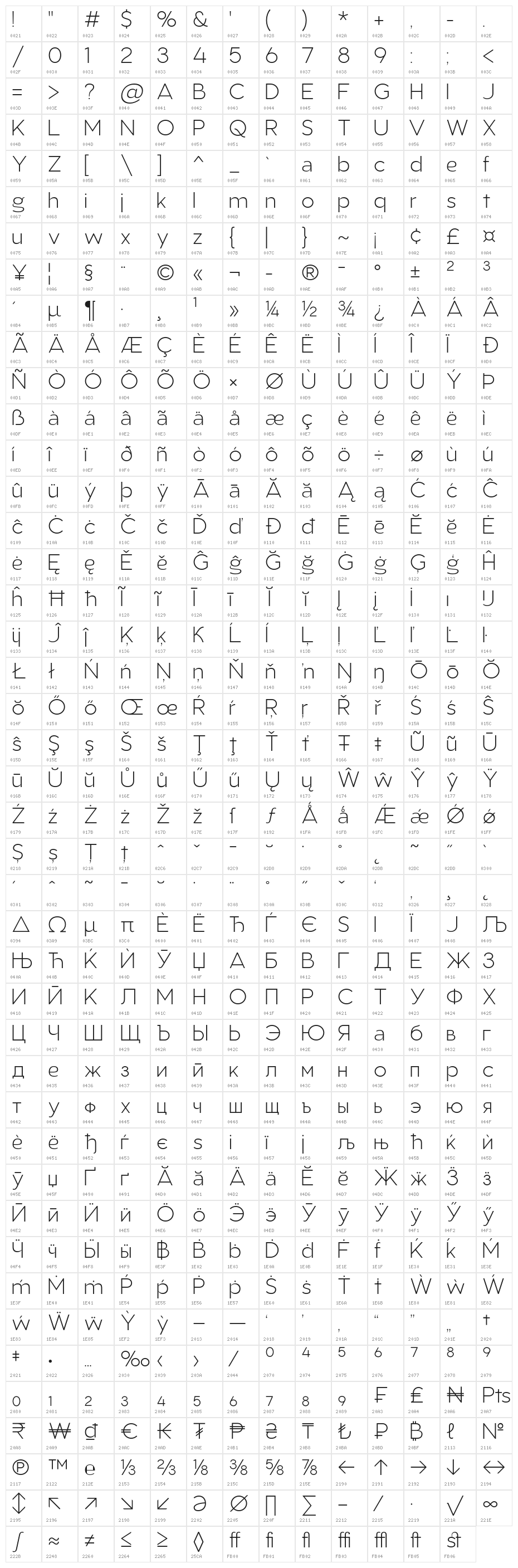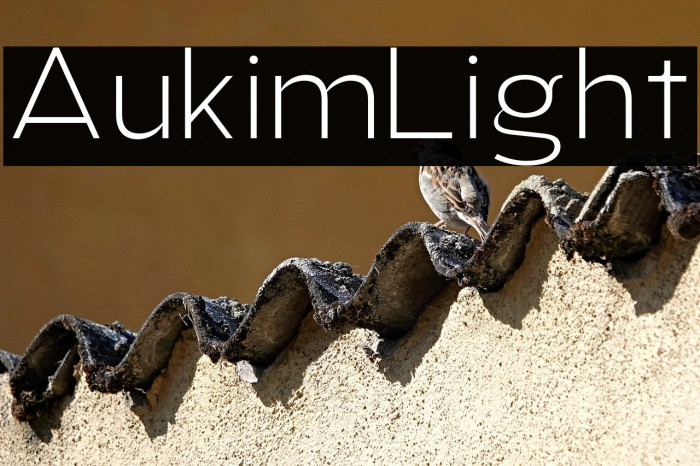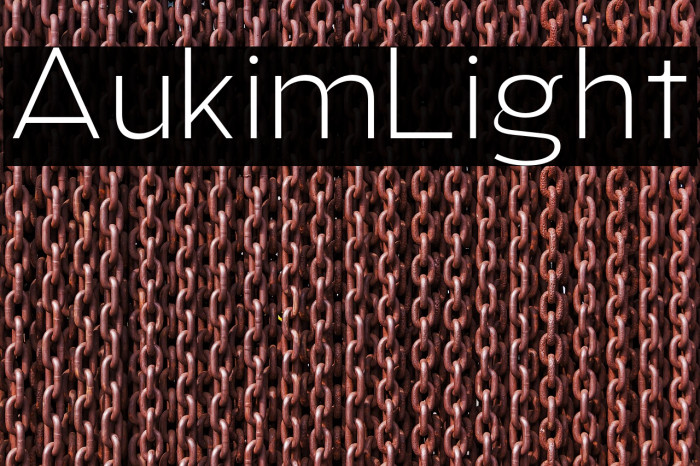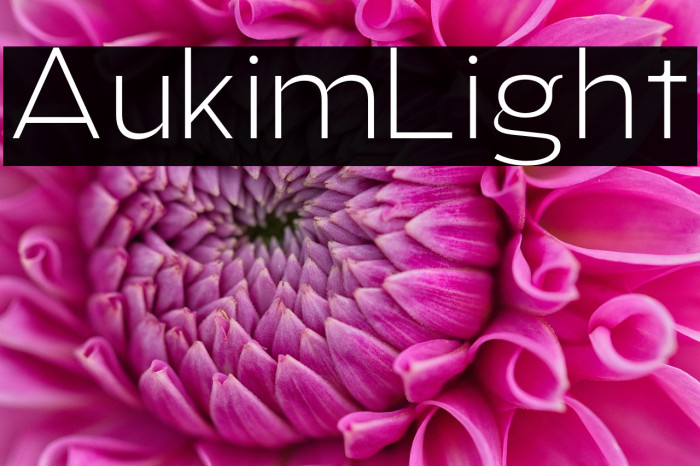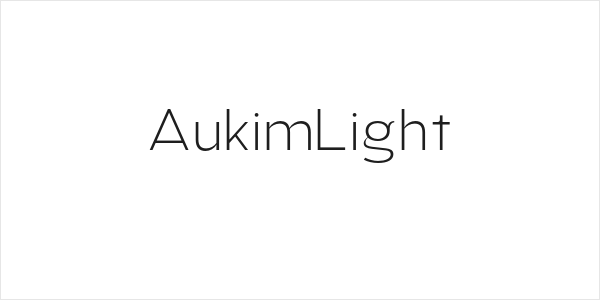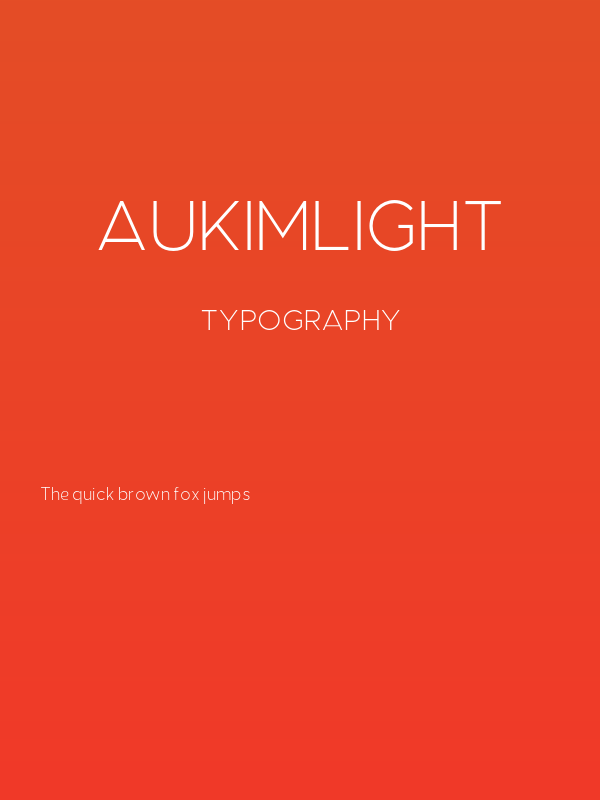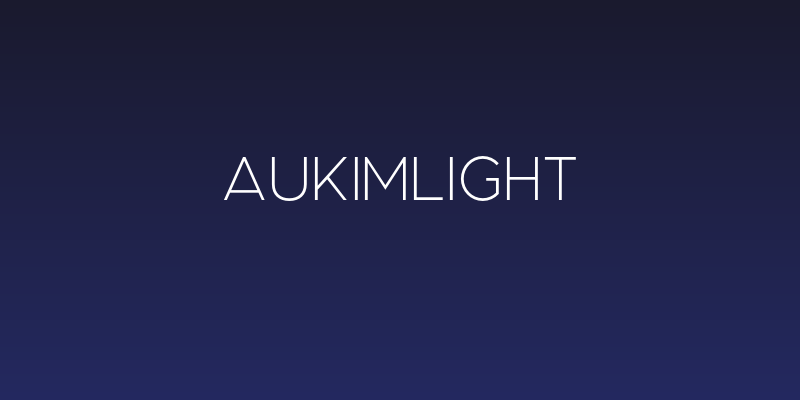
AukimLight Font
AukimLight Description
This font features a clean and modern sans-serif design with a geometric structure. The characters are evenly spaced, providing a balanced and harmonious appearance. The uppercase letters are bold and striking, while the lowercase letters maintain a consistent and smooth flow. The numerals are clear and legible, making them suitable for various applications. The special characters are designed with simplicity, ensuring they complement the overall aesthetic. This font's minimalistic style makes it versatile for both digital and print media.
| Proposed Projects | Ideal for branding, web design, advertising, and editorial layouts. |